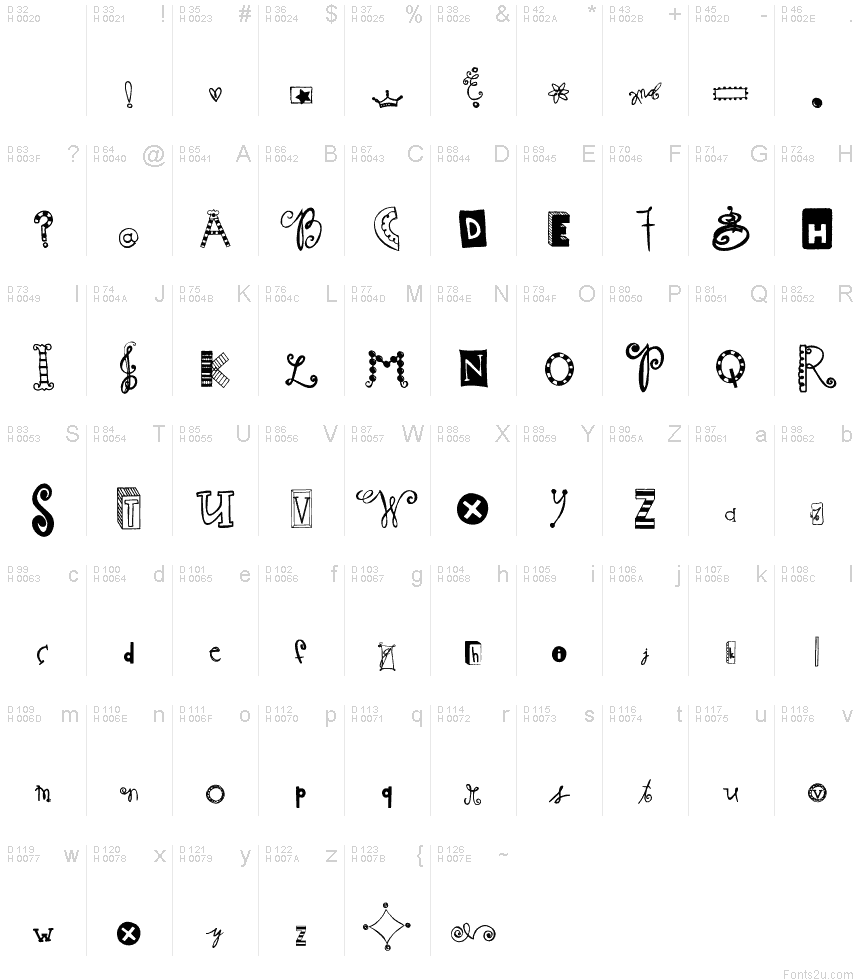
Never Writes Back is a free whimsical handwritten display font drawn with wildly uneven strokes and shifting letter shapes. Loose lines move between spindly loops, broad curves, and sudden blocks of solid form. Dots, rings, and patterned outlines make the lettering resemble hand-drawn signs.
An offbeat toy shop or children's brand could use it for an eccentric logo. It also suits game graphics, event posters, and playful merchandise. Changing forms turn each name into an illustrated emblem.